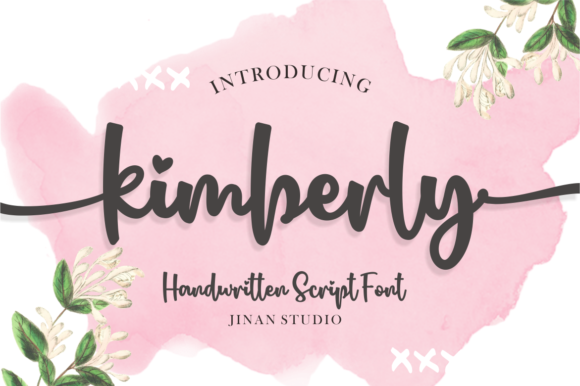
Behold the Kimberly Font, a mesmerizing handwritten typeface that will envelop your creative projects with a touch of elegance and allure. With its carefully crafted curves and flowing strokes, Kimberly promises to transform your words into works of art.
Dive into a world of endless possibilities with the Kimberly Font, the perfect companion for your Cricut projects. Let your imagination soar as you design personalized greeting cards, invitations, and home décor that exude warmth and charm. Watch as the Kimberly Font weaves its magic, adding a dash of whimsy and sophistication to every creation.
Unlock the full potential of your designs with the Kimberly Font, a font that transcends the ordinary. Let your creativity flourish as you explore the limitless applications of this versatile font. Kimberly will effortlessly elevate your social media posts, logos, and branding materials, leaving a lasting impression on your audience.
Experience the sheer joy of crafting with the Kimberly Font, a font that sparks imagination and ignites passion. Discover a world where words dance and emotions come alive, all thanks to the captivating allure of the Kimberly Font. Embrace the beauty of handwritten artistry and make your creative dreams a reality.